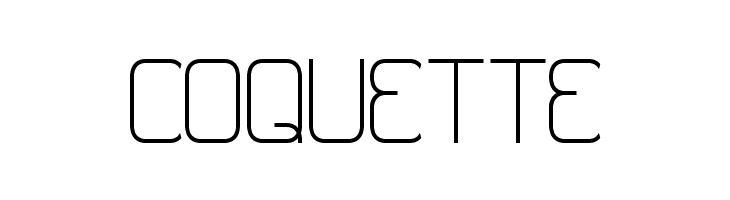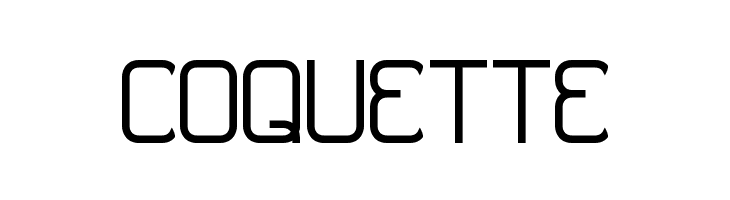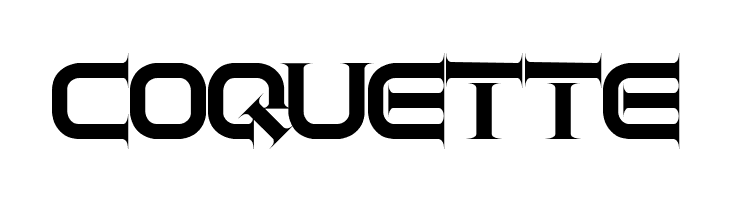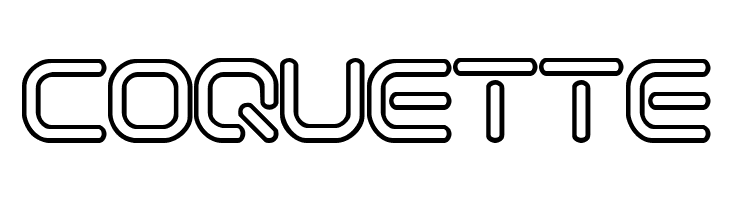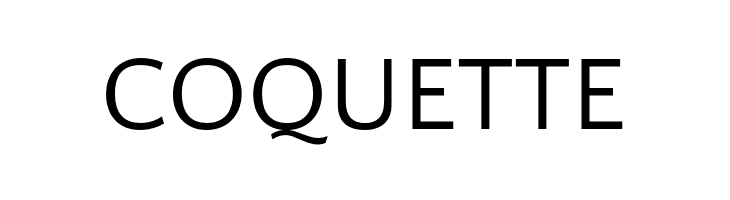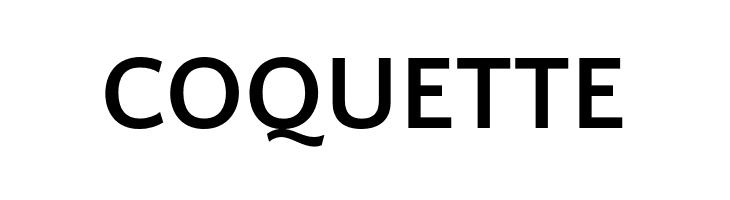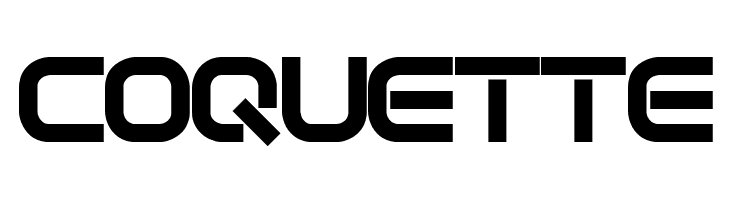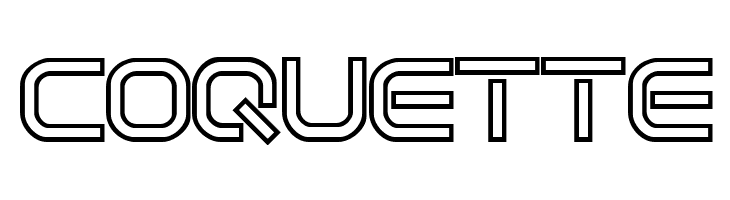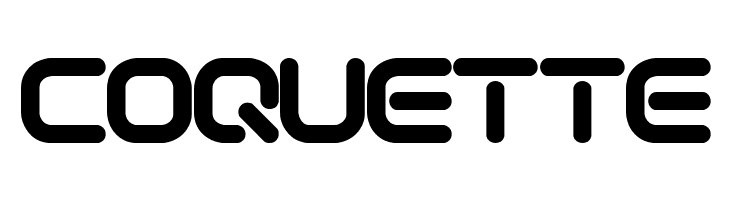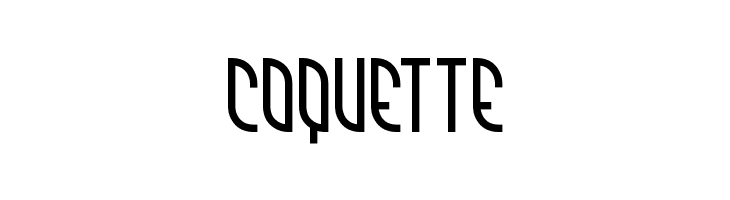
A futuristic, geometric font with clean lines and sharp angles.
A futuristic, hollow, geometric font with clean lines and angular shapes.
A futuristic, rounded font with smooth curves and geometric precision.
A futuristic, hollow, and rounded font with a geometric design.
A futuristic font with sharp, angular lines and a tapering effect.
A modern, geometric font with clean, rounded edges and uniform stroke width.
A modern, geometric font with thin, uniform lines and a minimalist style.
A modern sans-serif font with clean lines and balanced proportions.
A bold, modern sans-serif font with clean lines and balanced proportions.